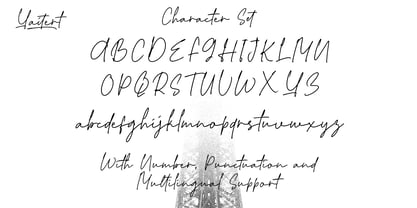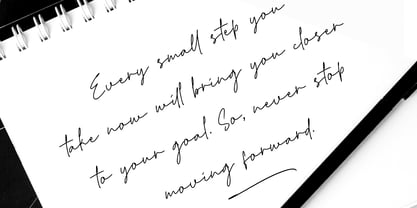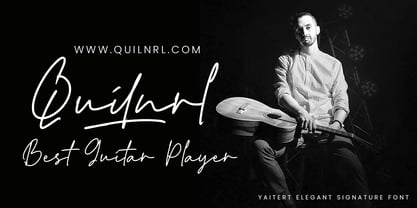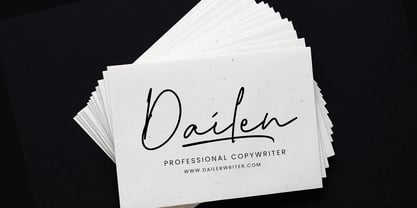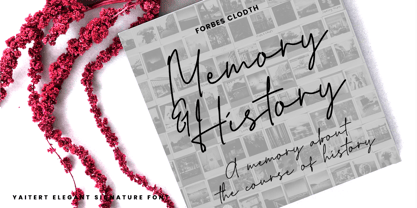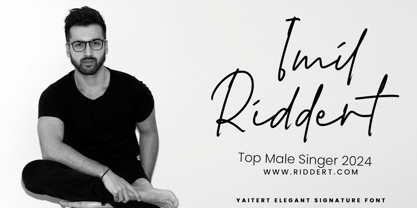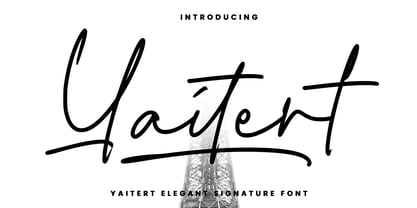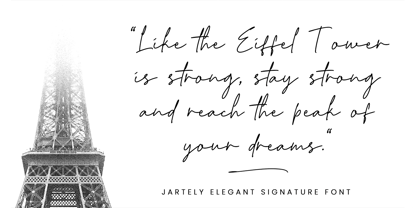
Yaitert
by Gatype
The Yaitert Font Family was designed by khaidir and published by Gatype. Yaitert contains 1 styles. More about this family
The Yaitert font is a brush-style typeface that exudes an energetic and artistic handwritten vibe.
The letters feature dynamic and fluid strokes, creating a casual and creative aesthetic.